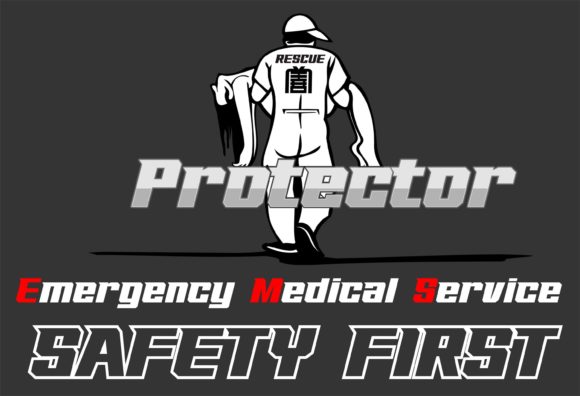
Behold, Protector Font, a display font that exudes power and confidence. Its bold strokes and sharp angles demand attention, making it the perfect choice for magazine covers that aim to leave a lasting impression.
Protector Font is more than just a font; it's a statement. Its commanding presence will elevate your designs to new heights, capturing the attention of your audience and leaving them in awe. Imagine your magazine cover adorned with Protector Font, its letters radiating authority and demanding to be read.
With Protector Font, you have a versatile tool at your disposal. Its distinct character shines through whether you're crafting eye-catching posters, designing captivating flyers, or creating striking print materials. Unleash your creativity and explore the endless possibilities Protector Font offers.
This modern and assertive font is the brainchild of siinsticker, a renowned font designer known for pushing the boundaries of creativity. Protector Font is a testament to their skill, embodying a perfect balance of strength and sophistication.
Don't settle for ordinary fonts that blend into the background. Embrace the boldness of Protector Font and watch your designs transform into masterpieces. Its unique style will set you apart from the competition, leaving a lasting impression on your audience.